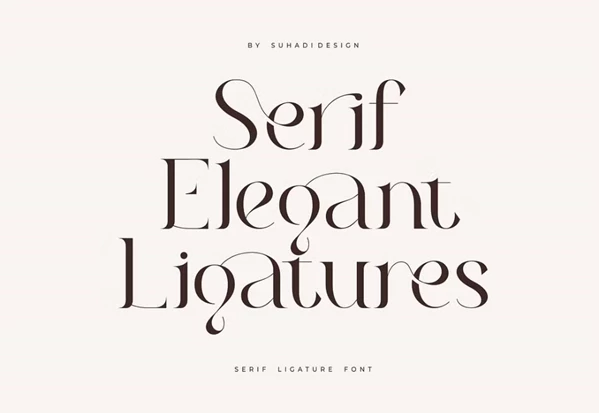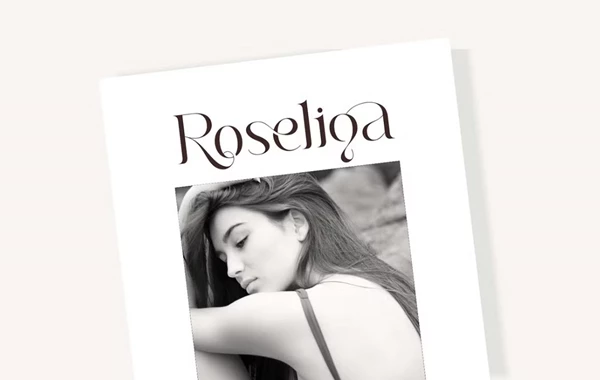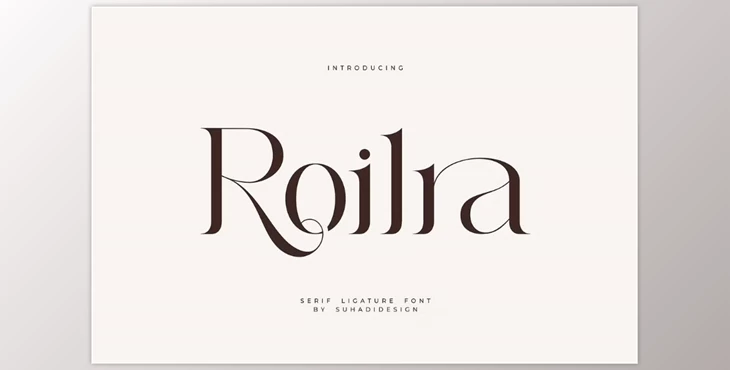
Roilra - Serif Ligature Font:
Roilra font is a beautiful serif font that has taken the world by storm thanks to its modern and chic appeal. Anyone looking for an aesthetically pleasing font to give a luxurious appeal for any project, Roilra is perfect. It's widely used in branding, beauty, magazines, and social media. This font is loved by men and women alike, as it provides quality for whatever project a creator is working on.
Some great features of Roilra - Serif Ligature Font:
- Uppercase and lowercase letters
- Ligatures